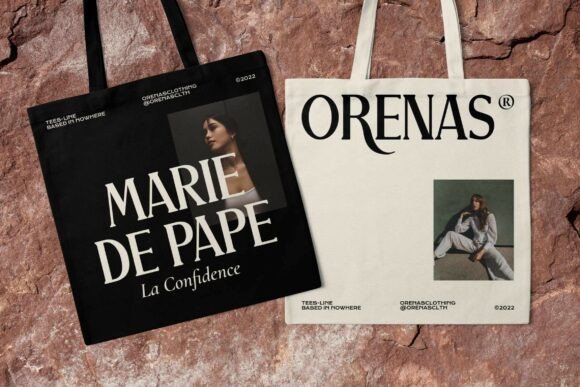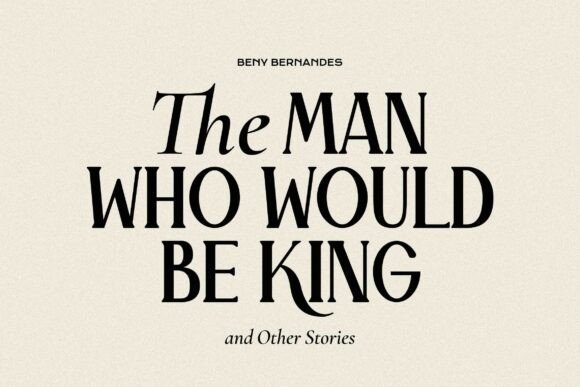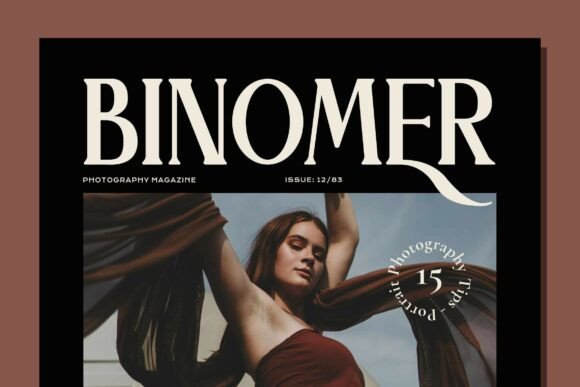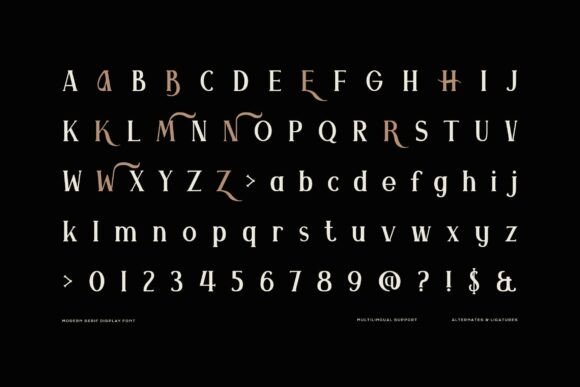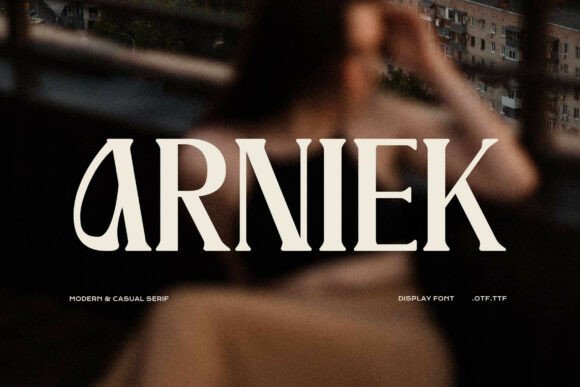
Introducing Arniek Reguler Font: Elevate Your Designs with Timeless Elegance and Modern Flair
In the world of typography, finding the perfect font that balances elegance with a modern twist can be a daunting task. However, look no further than Arniek Reguler Font, a contemporary serif display font that seamlessly blends classic sophistication with a relaxed, casual vibe. Designed to captivate audiences and elevate designs, Arniek is the ideal choice for creative professionals seeking a versatile and stylish font for their editorial, branding, and design projects.
Refined Letterforms with a Modern Twist
Arniek’s refined letterforms are characterized by subtle flaring and graceful curves, which evoke a sense of timeless elegance. The font’s tall proportions and clean contrast between thick and thin strokes create a sophisticated silhouette, perfect for making a statement in headlines, logos, and luxury packaging. The unexpected ornamental strokes and alternate characters add a touch of personality to the font, making it stand out from more traditional serif fonts.
Playful Flourishes and Creative Flair
What sets Arniek apart from other serif fonts is its playful flourishes in select glyphs, which bring charm and visual intrigue to any design. These decorative elements add a creative flair to the font, making it perfect for designers who want to add a touch of whimsy to their work. Whether you’re designing a luxury brand logo, a high-end product package, or a stylish editorial spread, Arniek’s playful flourishes are sure to captivate your audience.
Arniek Reguler Font is incredibly versatile, making it suitable for a wide range of design applications. Its classic structure and modern flair make it perfect for:
- Editorial design: Use Arniek to create stunning headlines, titles, and captions for magazines, newspapers, and online publications.
- Branding: Create a lasting impression with Arniek’s elegant and modern logo designs that exude sophistication and style.
- Luxury packaging: Elevate your product packaging with Arniek’s refined letterforms and playful flourishes that add a touch of luxury and whimsy.
Why Choose Arniek Reguler Font?
With so many fonts available, why choose Arniek Reguler Font? Here are just a few reasons why designers and crafters love Arniek:
- Unique blend of elegance and modernity: Arniek’s refined letterforms and playful flourishes make it a standout font that adds a touch of sophistication and whimsy to any design.
- Versatility: Arniek is suitable for a wide range of design applications, from editorial design to branding and luxury packaging.
In conclusion, Arniek Reguler Font is a modern and casual serif display font that offers the perfect blend of timeless elegance and creative flair. Its refined letterforms, playful flourishes, and versatile design make it an ideal choice for designers and crafters seeking a stylish and sophisticated font for their projects. Try Arniek Reguler Font today and elevate your designs to new heights!